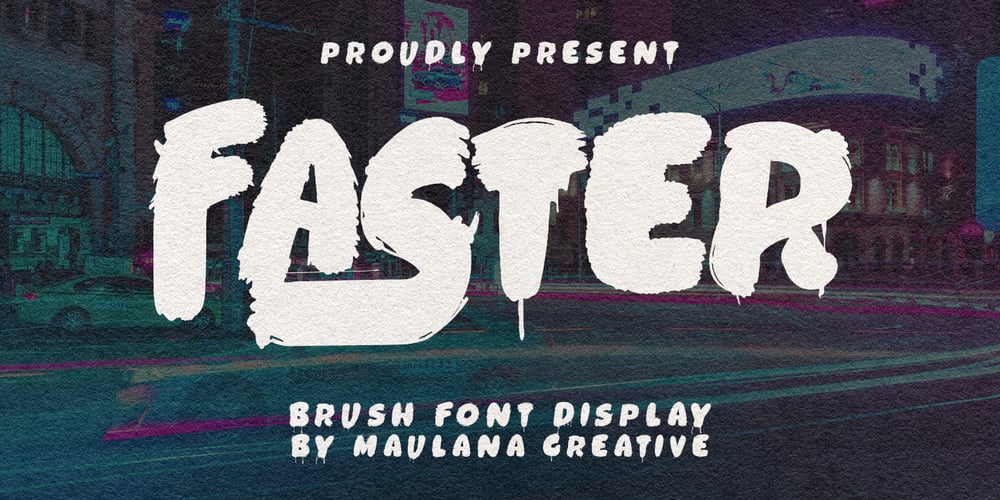
MC Faster Brush Font Family was designed by Gilang Maulana and published by Maulana Creative. MC Faster Brush contains 1 styles and family package options. Give your designs an authentic brush handcrafted feel. “Faster Brush Font Display” is perfectly suited to signature, stationery, logo, typography quotes, magazine or book cover, website header, flyer, clothing, branding, packaging design and more.–UppercaseThanks for use this font.Maulana Creative